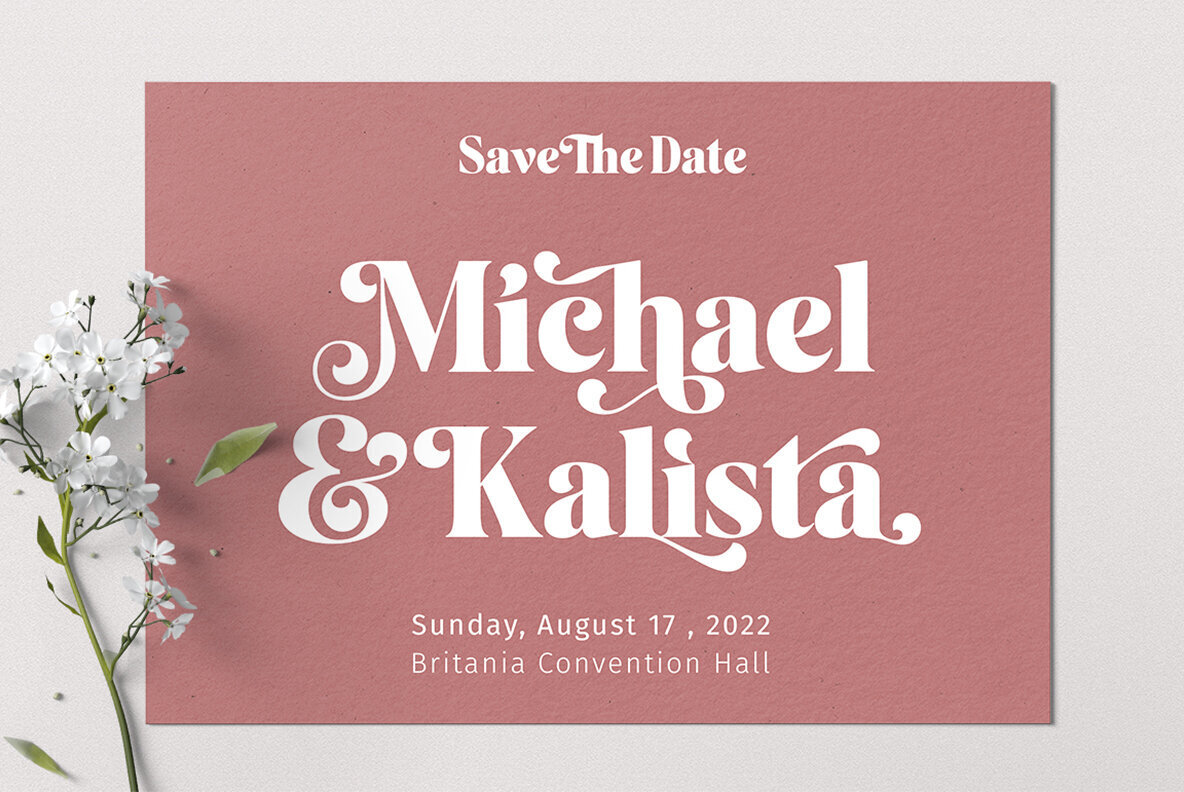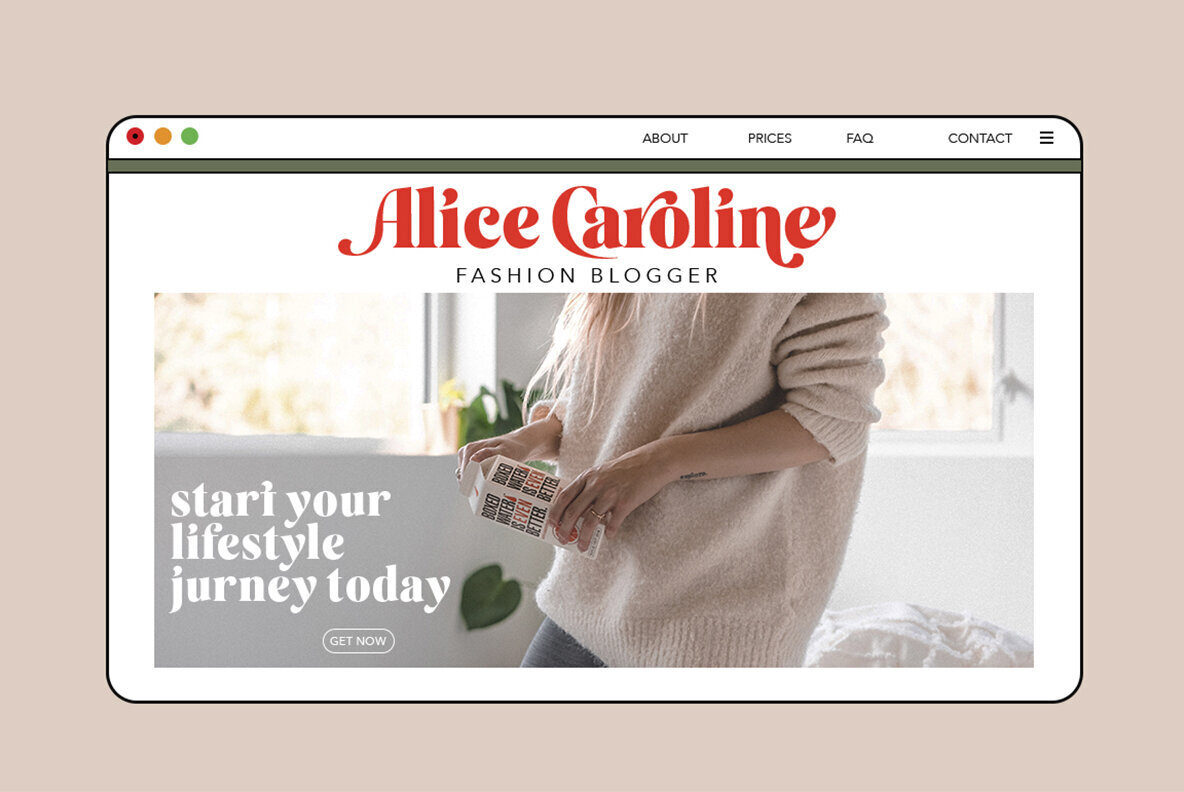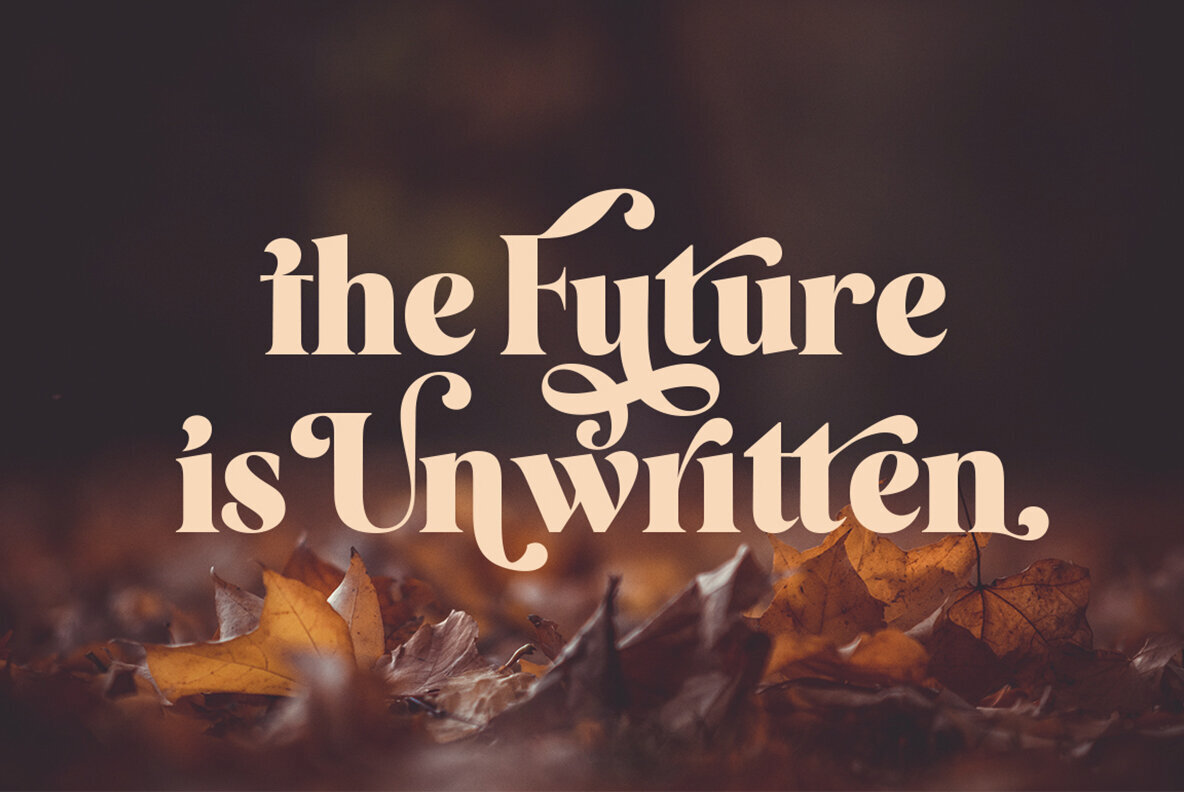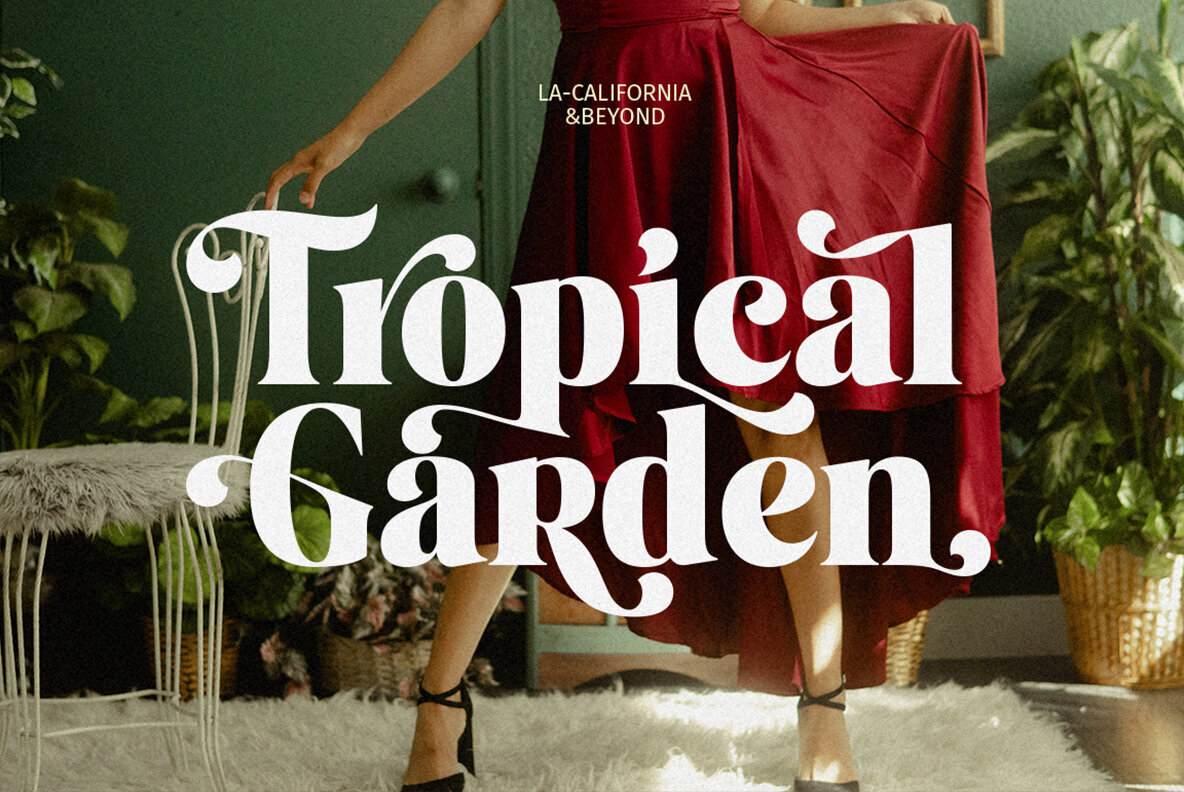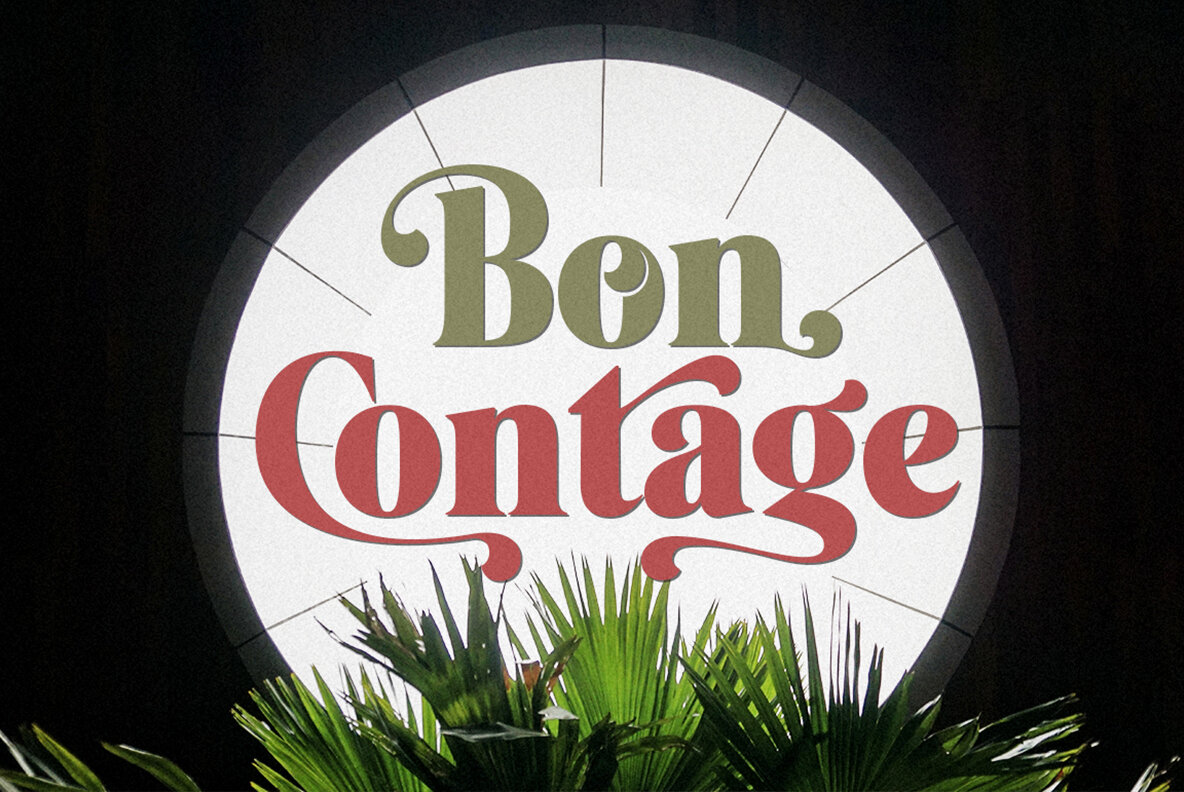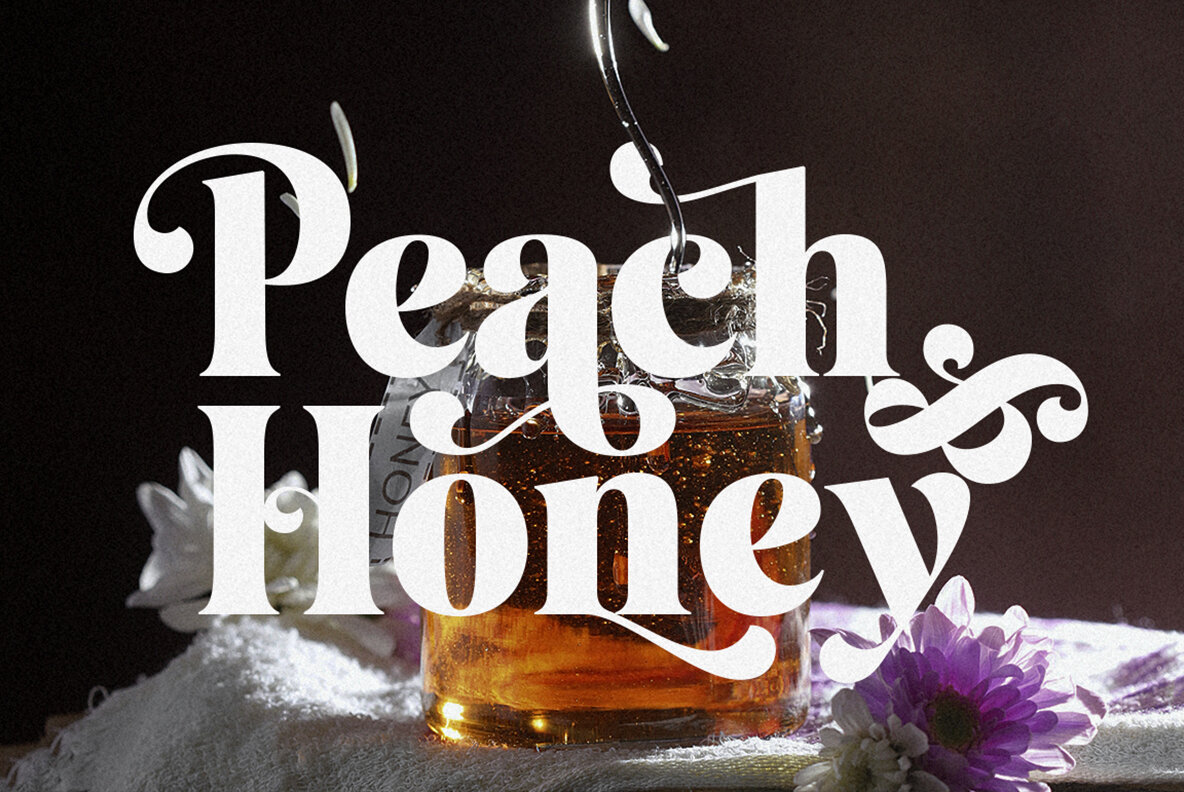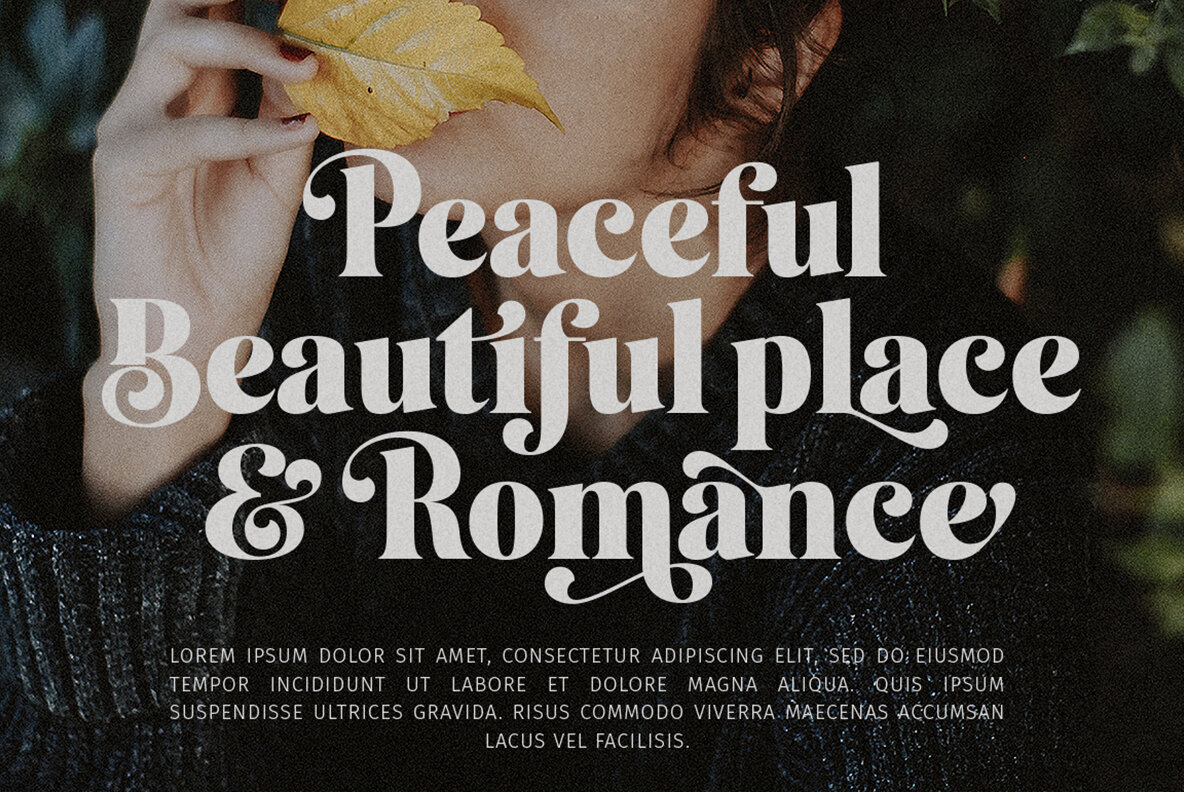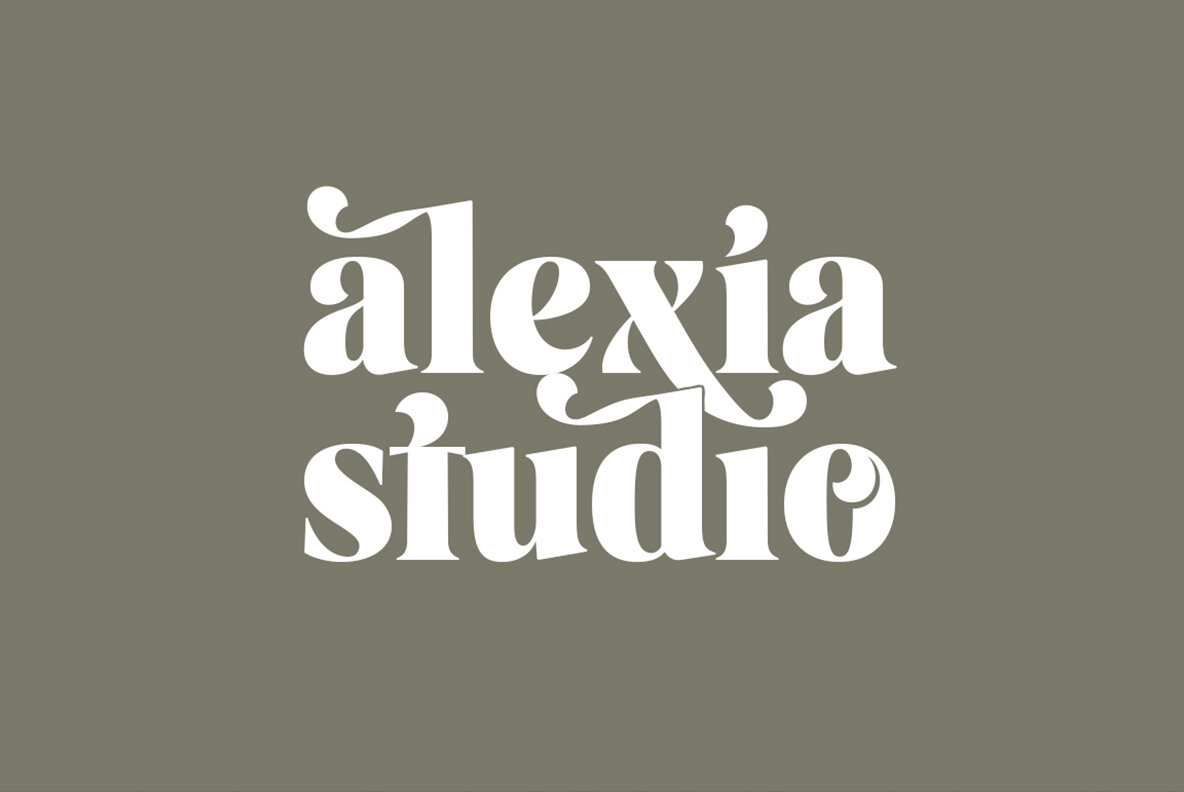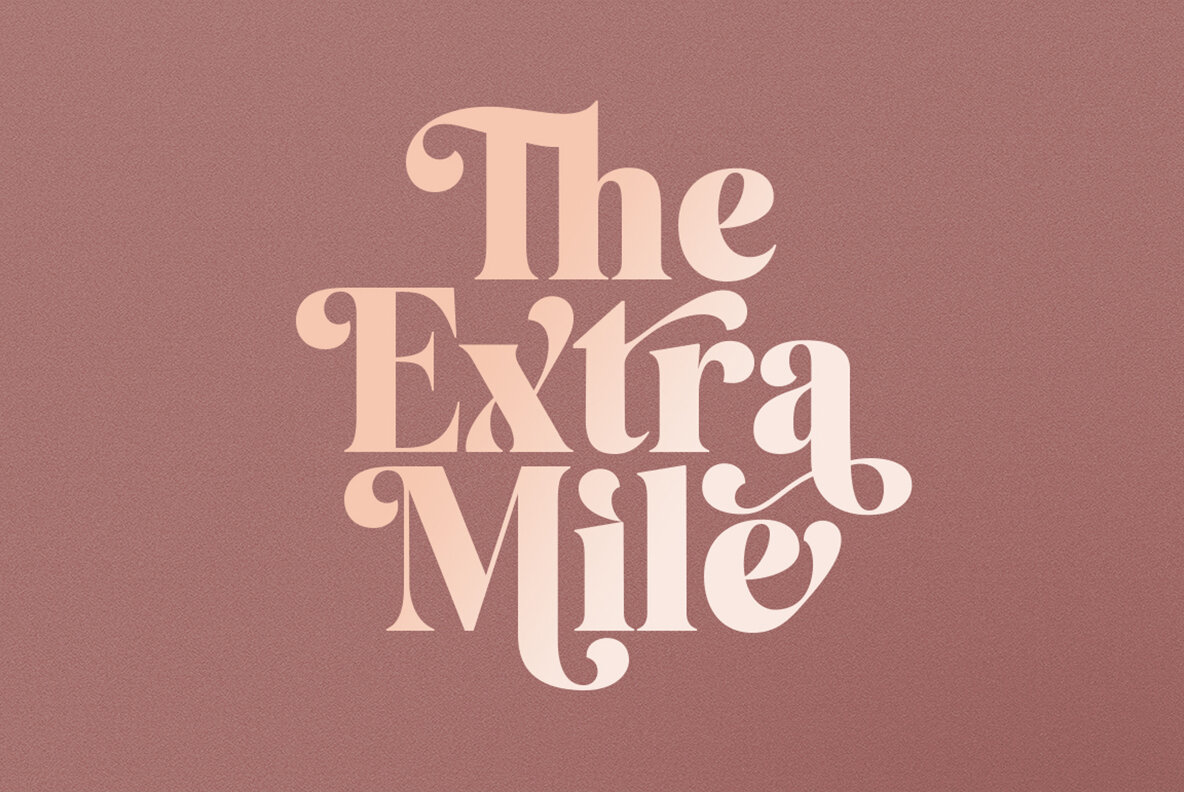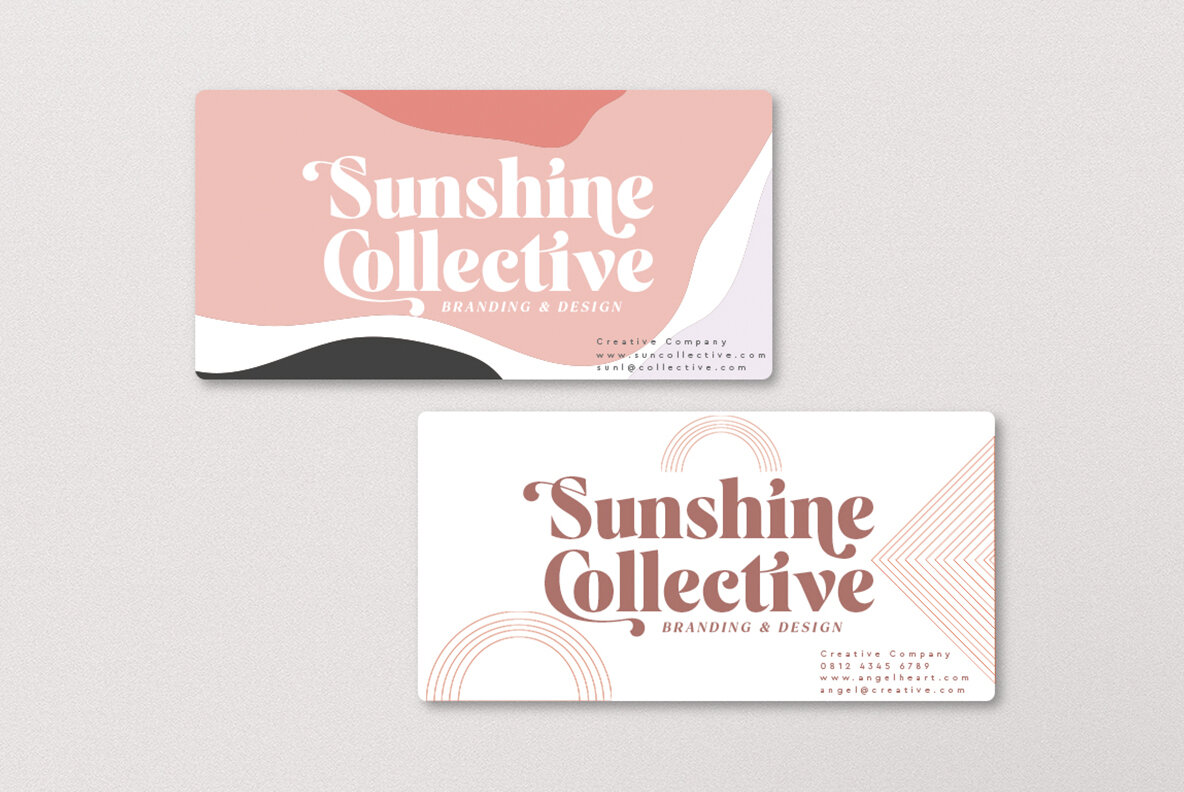
Floresta Font
Floresta Regular
Floresta is a modern vintage serif font packaged in a modern and classy style, complete with access to your OpenType features to access a large selection of alternates letters and ligatures, the choice of letters you like from variations of uppercase and lowercase letters to get a display luxurious and elegant.
Floresta Display has 433 glyphs with 11 ligatures and 197 alternates to beautify the design you like. This font is perfect for branding projects, Logo design, Clothing Branding, packaging, magazine headings, advertising, T-shirts, postcards and much more.